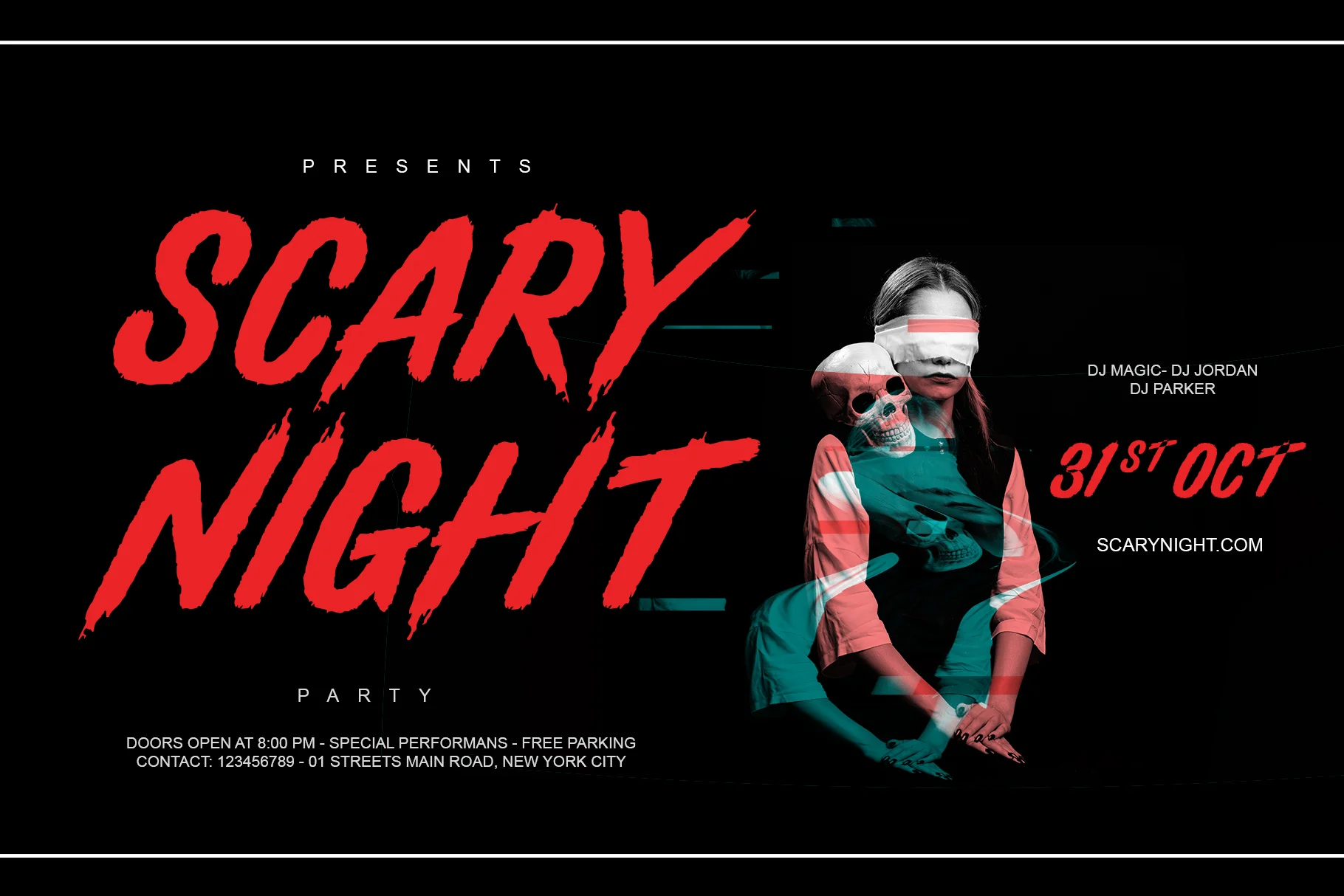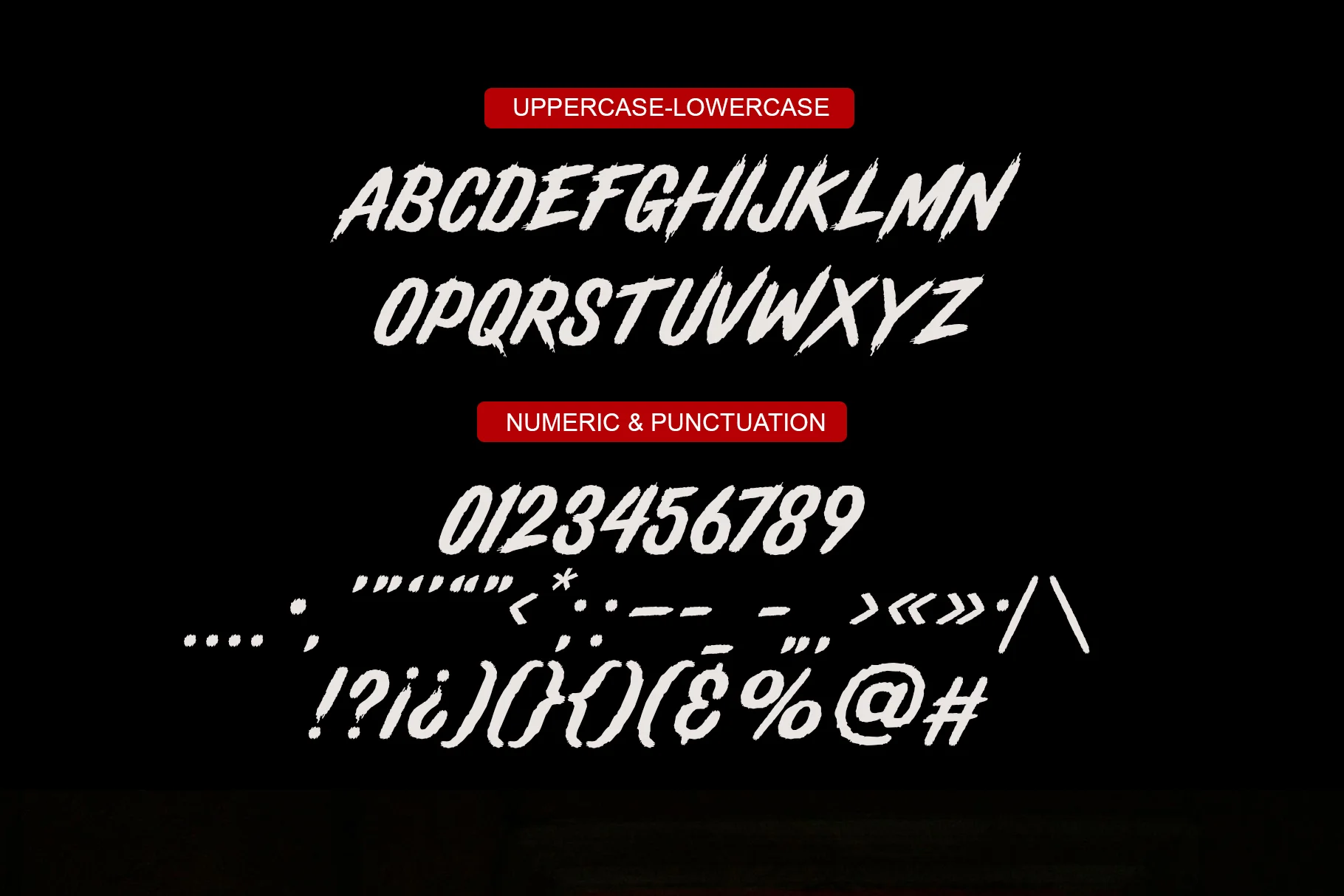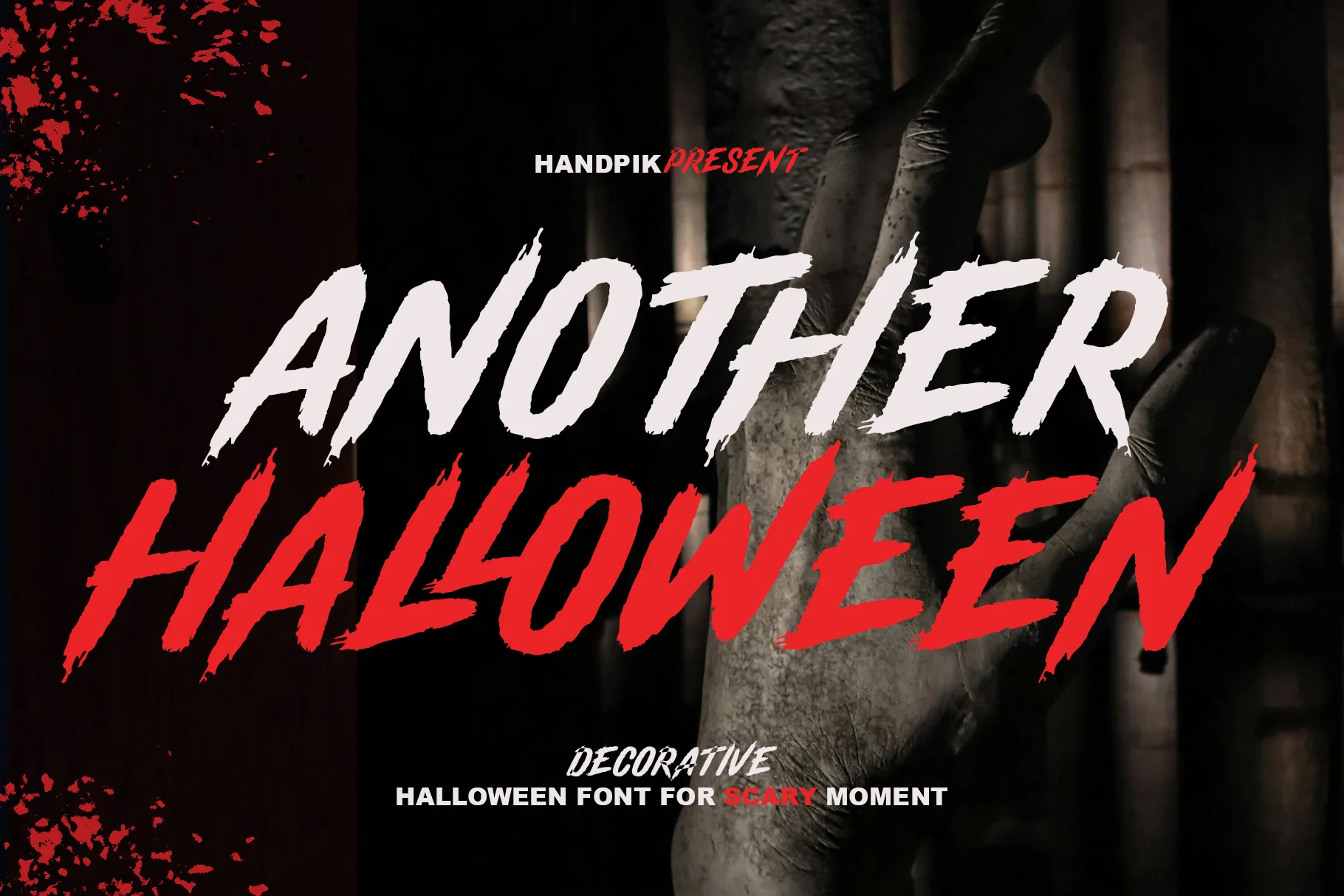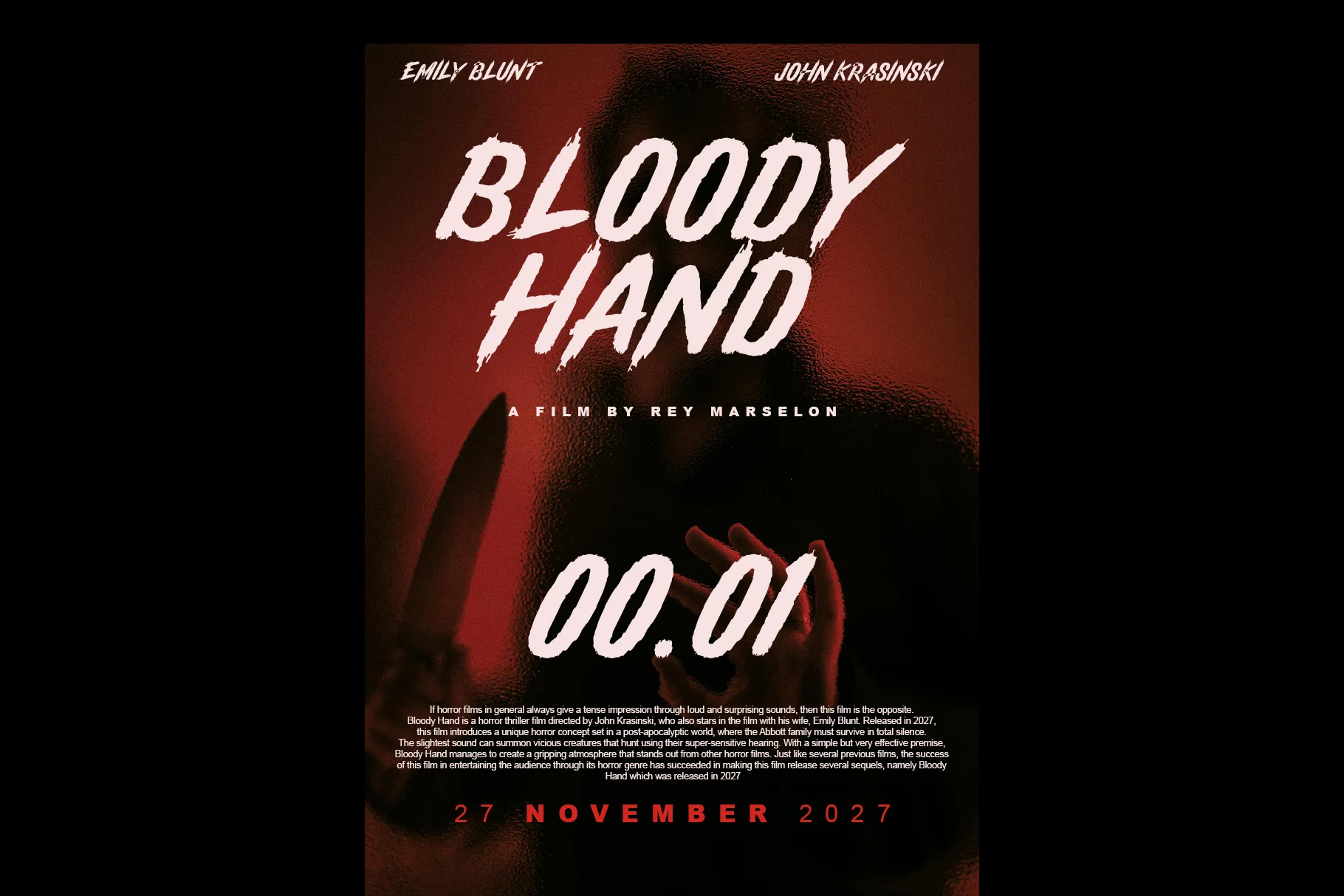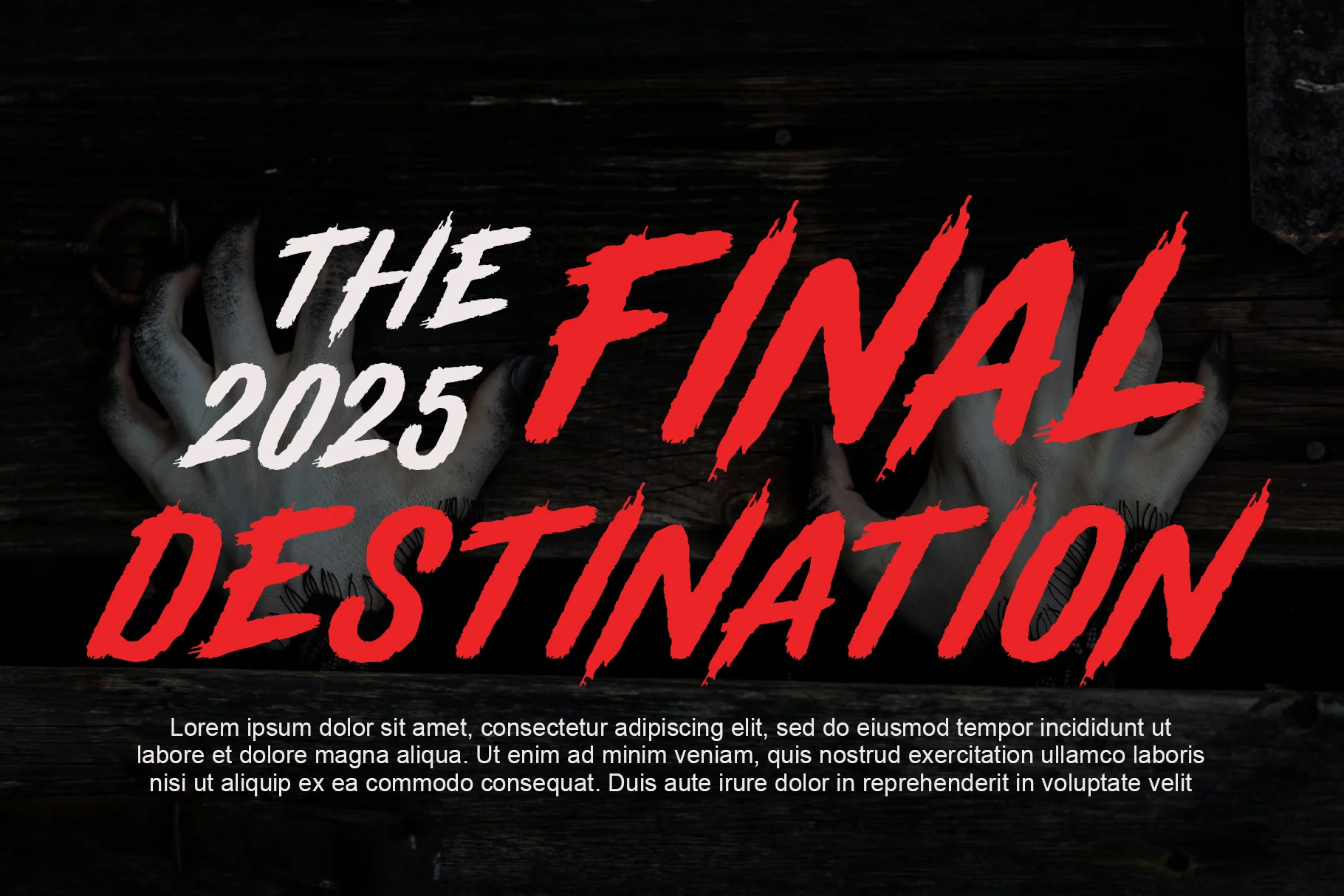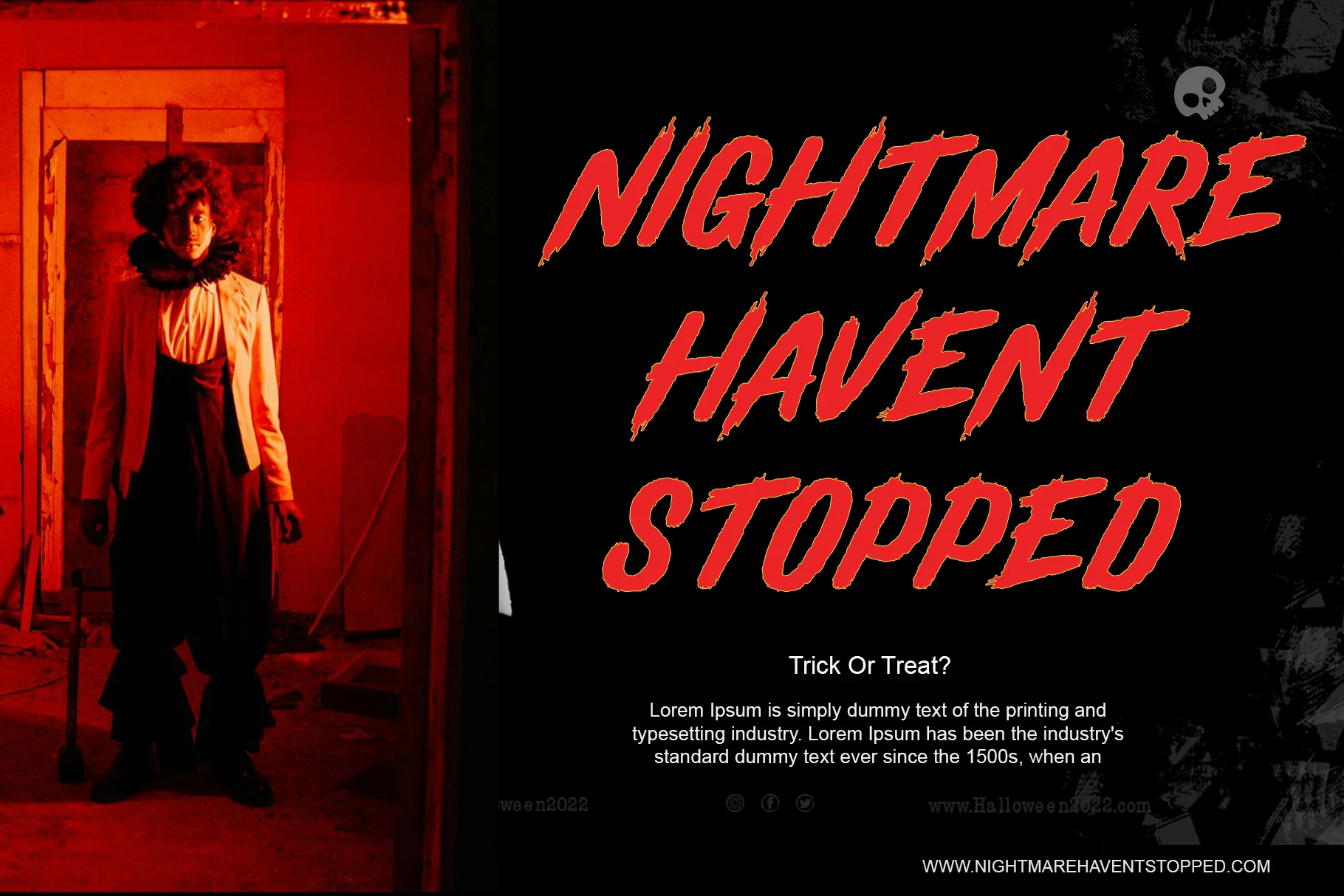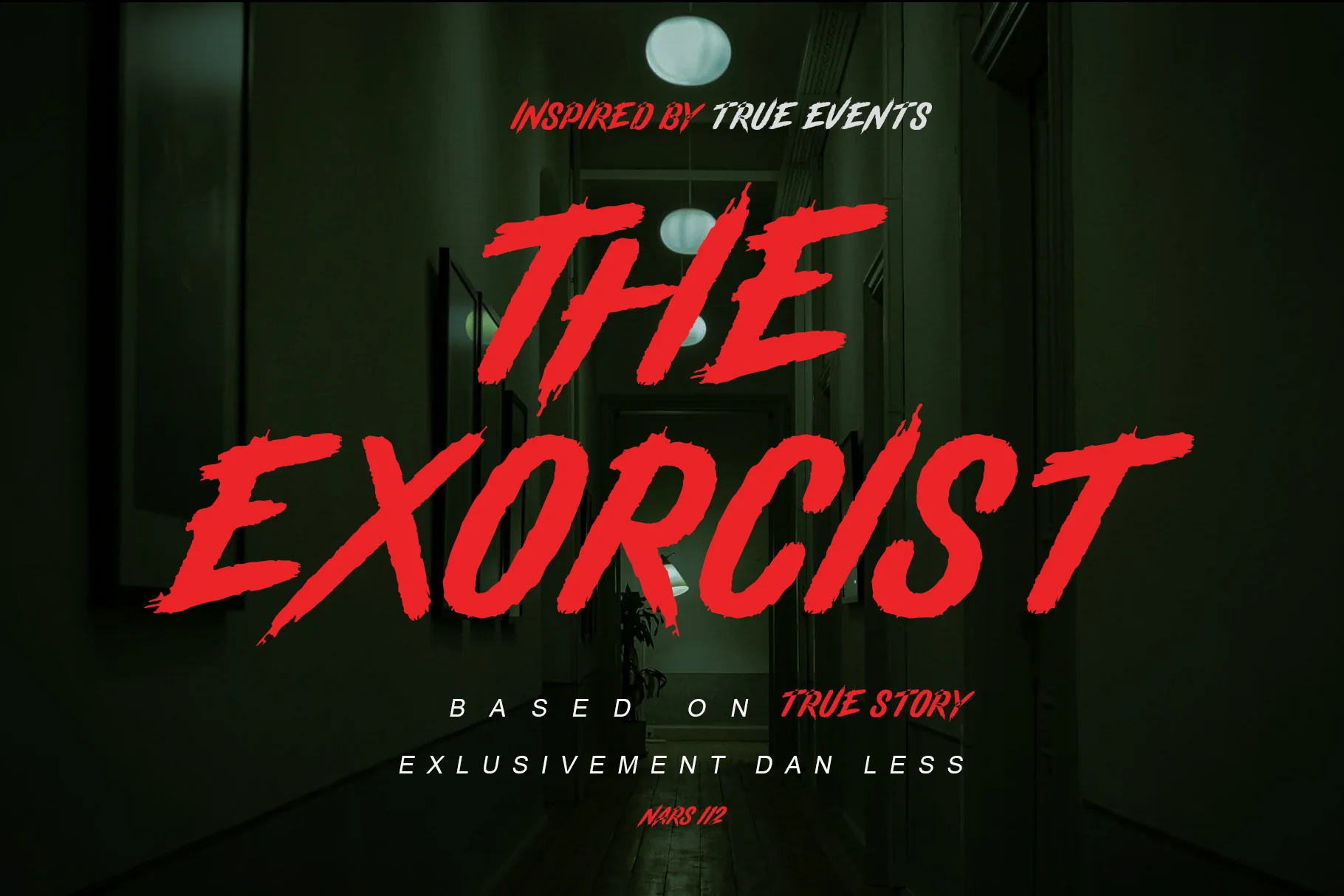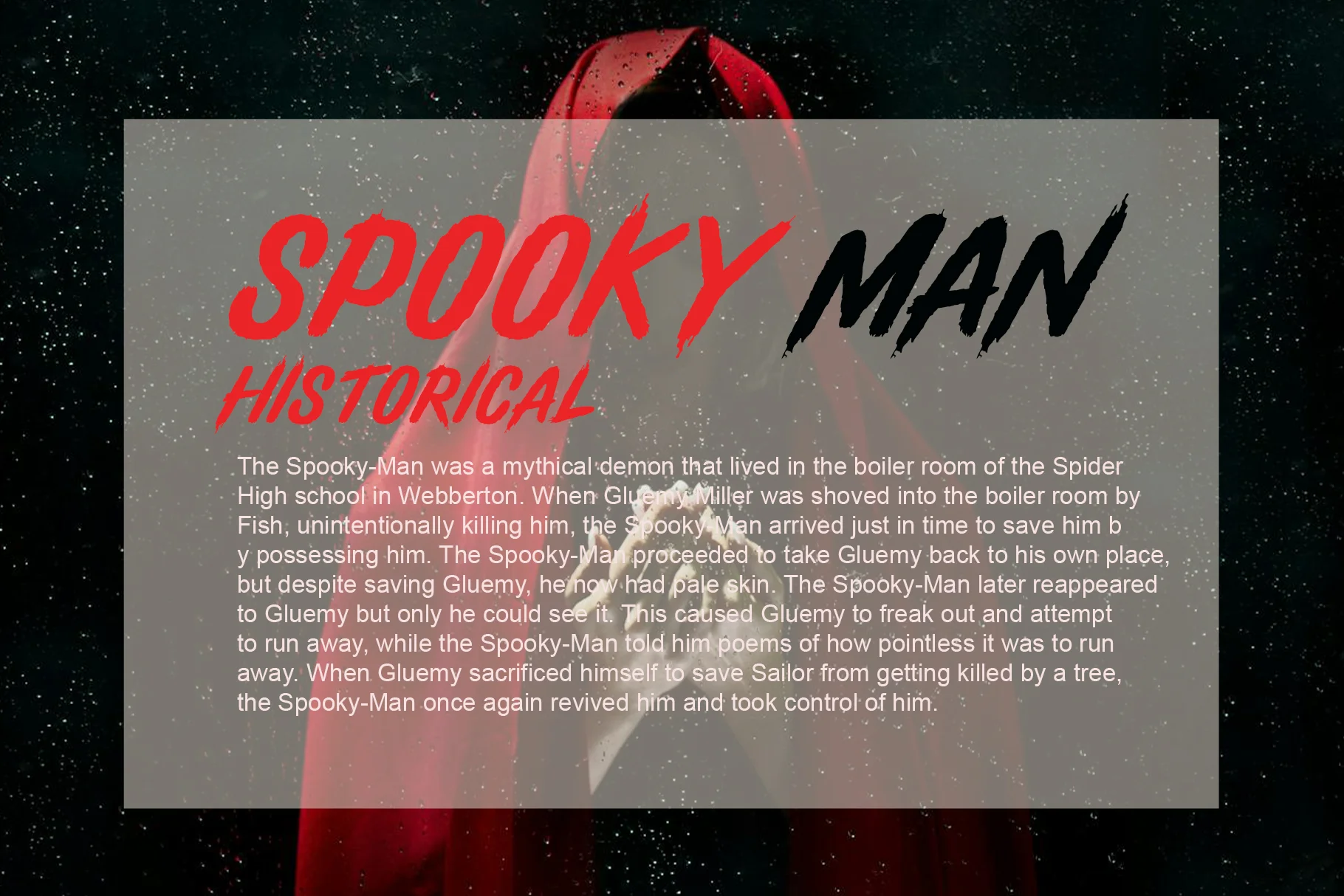
Another Halloween
Another Halloween will perfect for many project: book, magazines, logo, branding, photography, quotes, blog header, poster, advertisements, etc.
- Uppercase and Lowercase – Complete range of letter cases for diverse uses.
- Numerals – Includes numbers for various creative needs.
- Functional – Designed for efficiency and aesthetic appeal.
- Multilingual Support – Includes characters for multiple languages.
- Stylistic Variations – Offers creative style options.